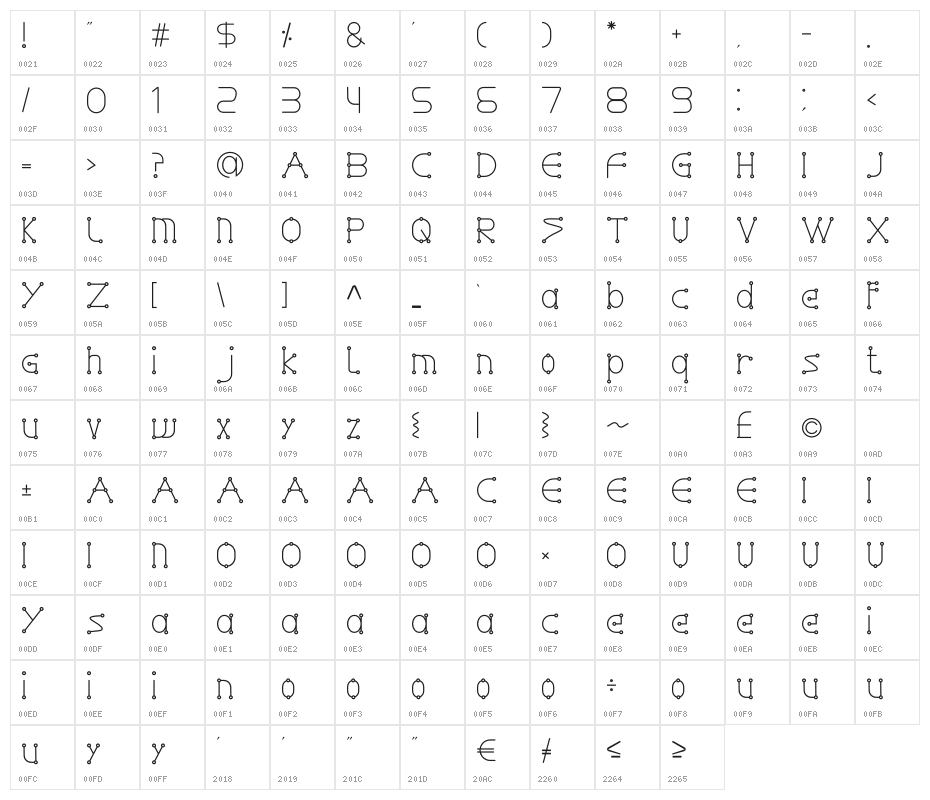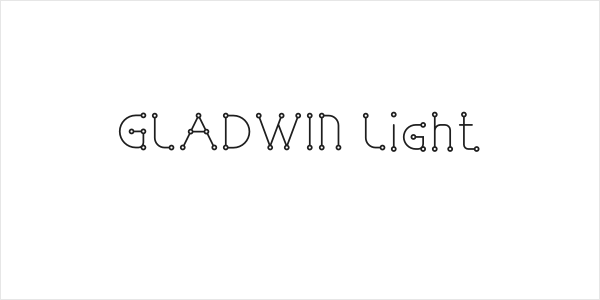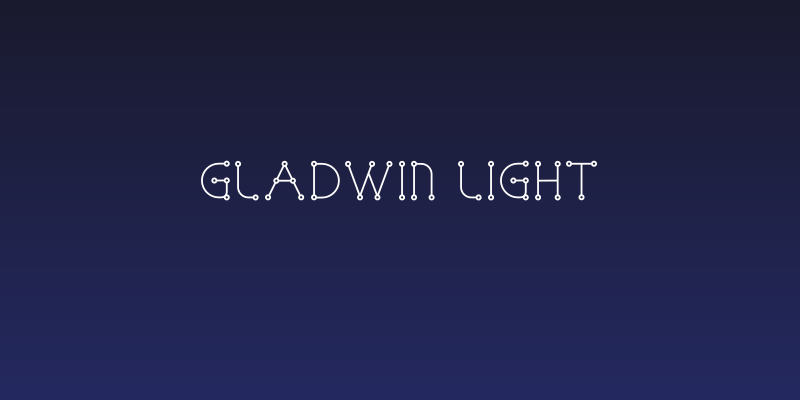
GLADWIN Light Font
GLADWIN Light Description
This font features a unique and modern design with a dotted line style that connects each character. The uppercase and lowercase letters, as well as numbers and special characters, are composed of thin lines with small circular dots at key points, creating a futuristic and technical appearance. The overall look is clean and minimalistic, with a consistent line weight throughout. The font's geometric structure and distinctive style make it stand out, offering a blend of simplicity and sophistication. It is ideal for projects that require a contemporary and innovative touch.
| Use Case | Logos, Headlines, Digital Interfaces |
| Proposed Projects | Ideal for tech branding, digital interfaces, modern posters, and innovative product packaging. |